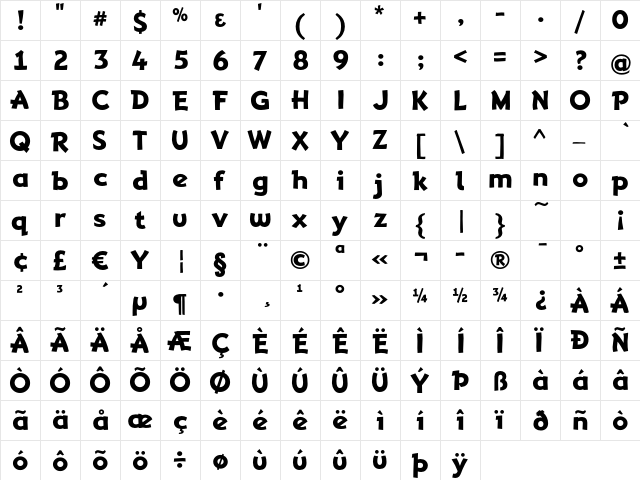
Adventuring Regular
Design Context for Adventuring Typeface
Adventuring offers clean, dependable letterforms without strong stylistic allegiance, making it a practical choice for designers who need flexibility.